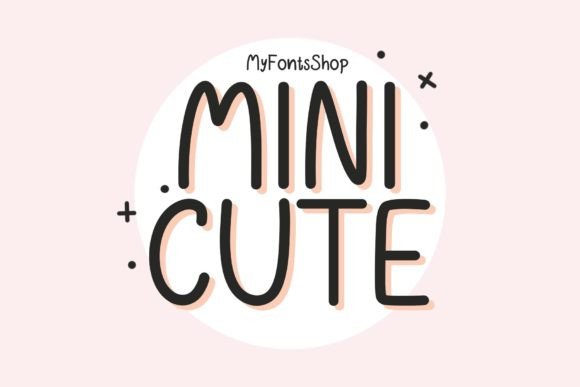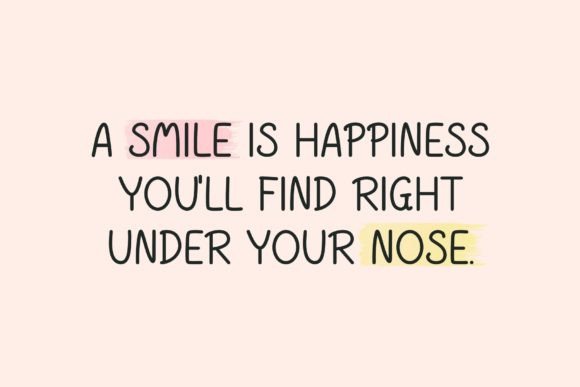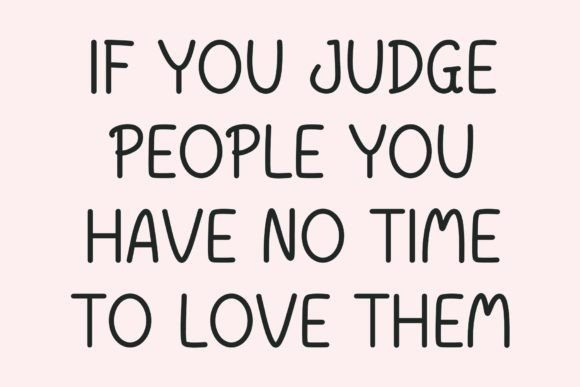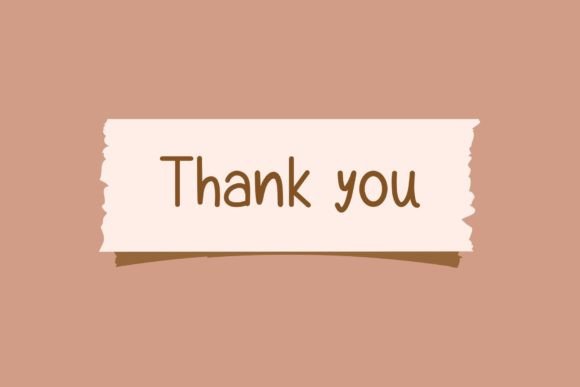
MiniCute Font: A Playful & Cute Handwritten Font for Cricut Projects
About the Minicute Font
Step up your design game with Minicute Font, a font that exudes confidence and style. Mini Cute is a sweet and friendly handwritten font. Its natural and unique
style makes it incredibly fitting to a large pool of designs. The only limit is
your imagination!
Minicute’s friendly, handwritten style excels in projects requiring a warm and approachable feel. Ideal applications include logos for children’s products, branding for cafes or boutiques, short social media posts, and packaging for sweet treats. It also works well in headlines or short quotes within larger designs using a more legible supporting font.
However, avoid using Minicute for body text or large blocks of text; its informal nature and varying letterforms hinder readability in longer passages. Similarly, it’s not suitable for user interfaces or projects requiring a high degree of professionalism.
Pairing Minicute with a clean sans-serif like Open Sans for body text creates a balanced and harmonious design. Alternatively, a classic serif font such as Playfair Display adds a touch of elegance, while a geometric sans-serif like Montserrat provides a modern contrast. The overall personality of Minicute is best described as cheerful and approachable, making it ideal for conveying a sense of playfulness and friendliness.
Minicute Font Usage Examples
Minicute Font Example